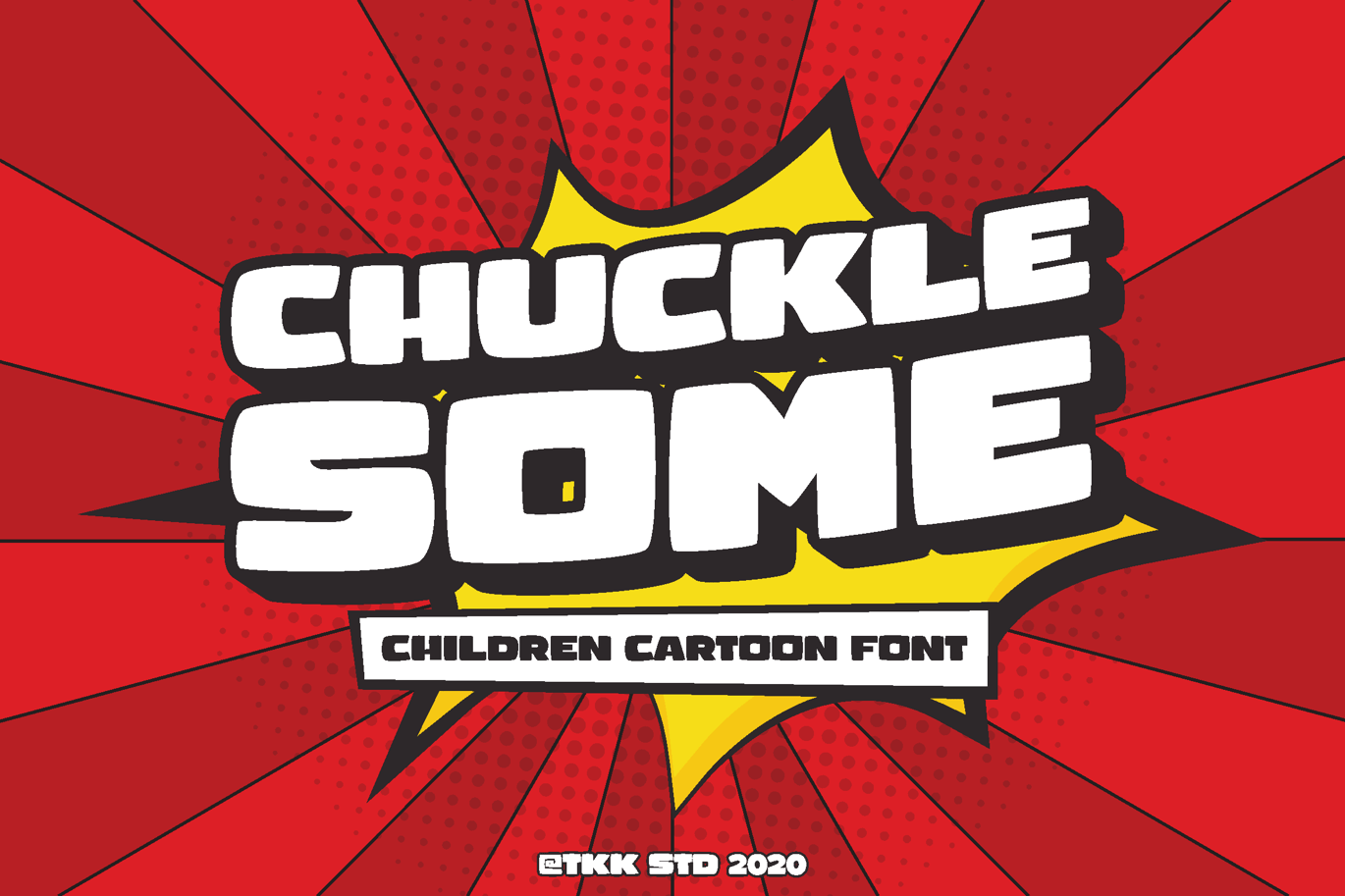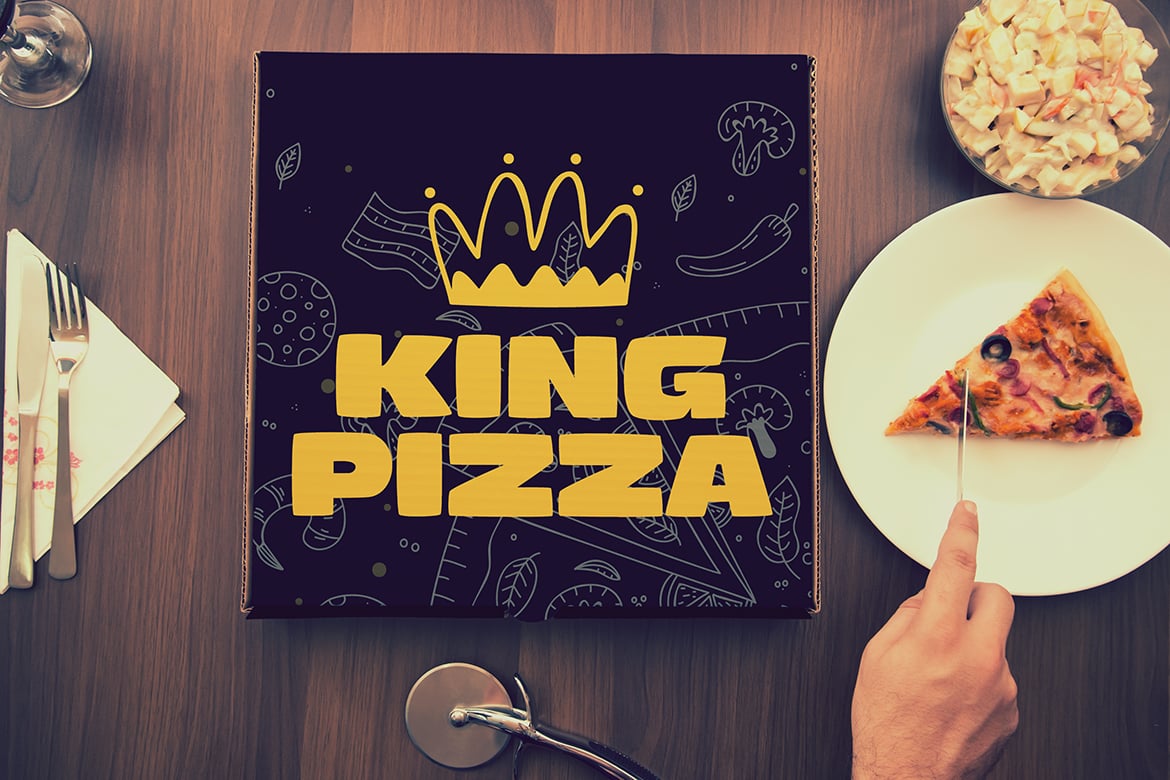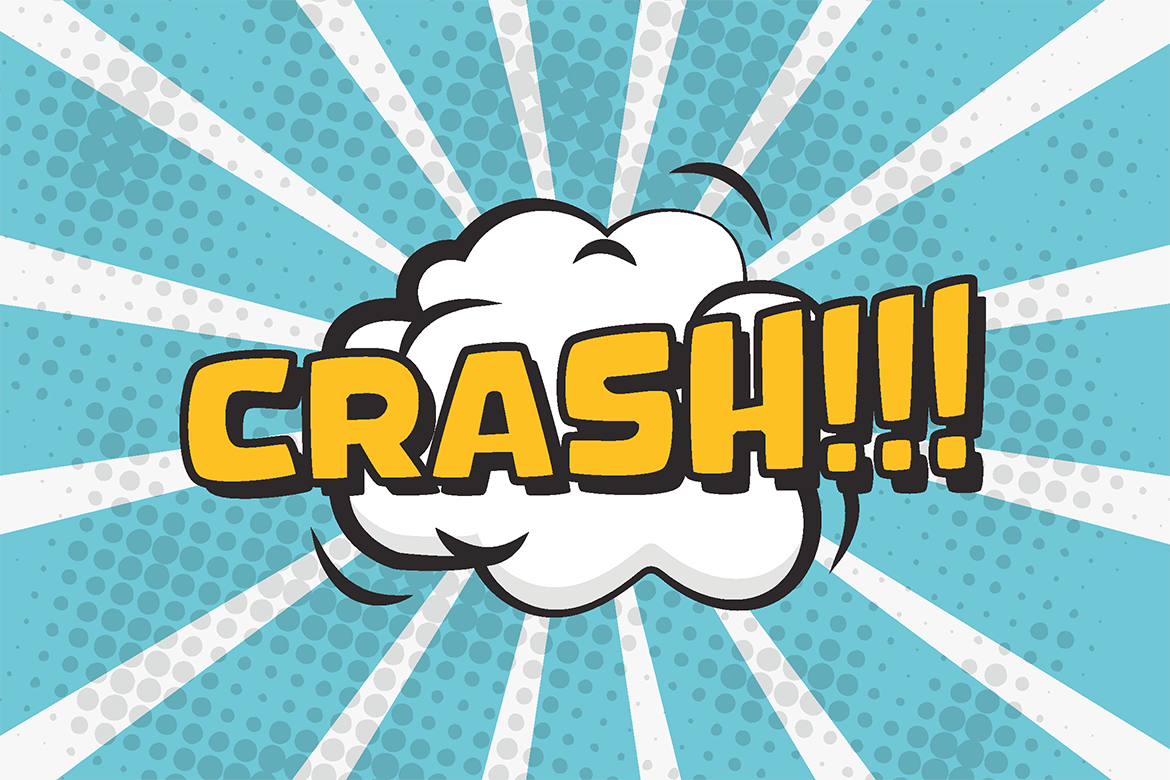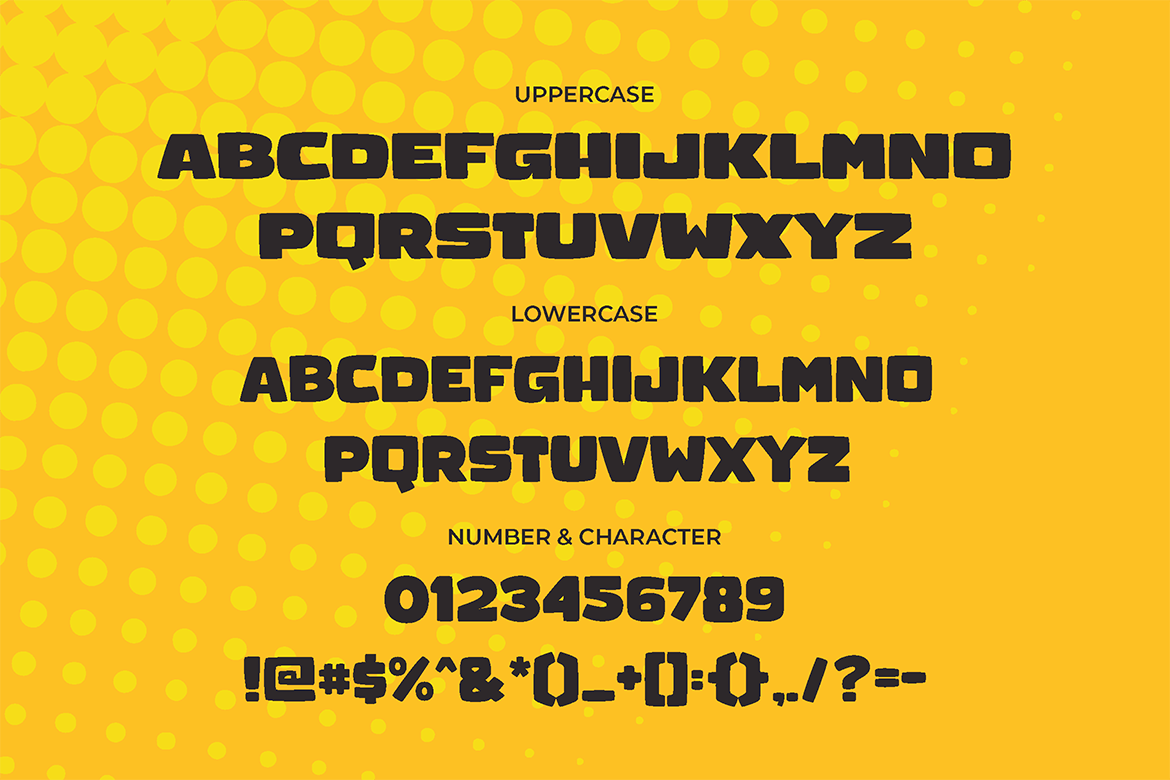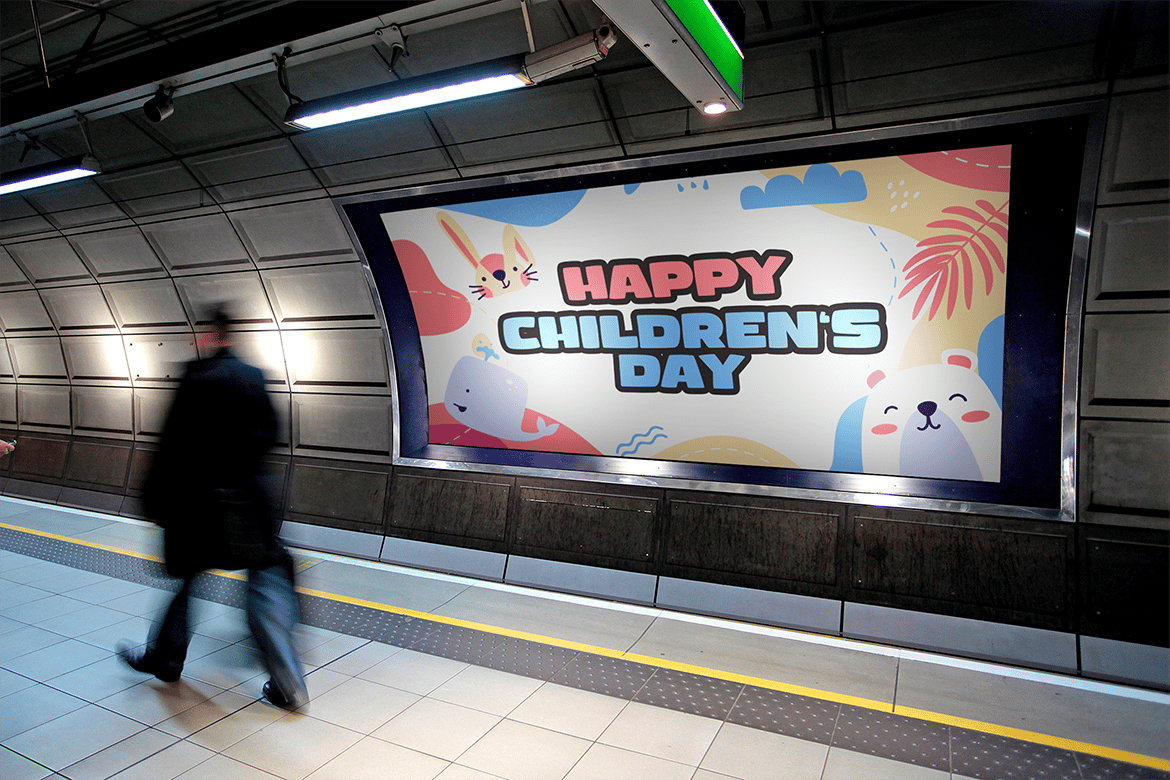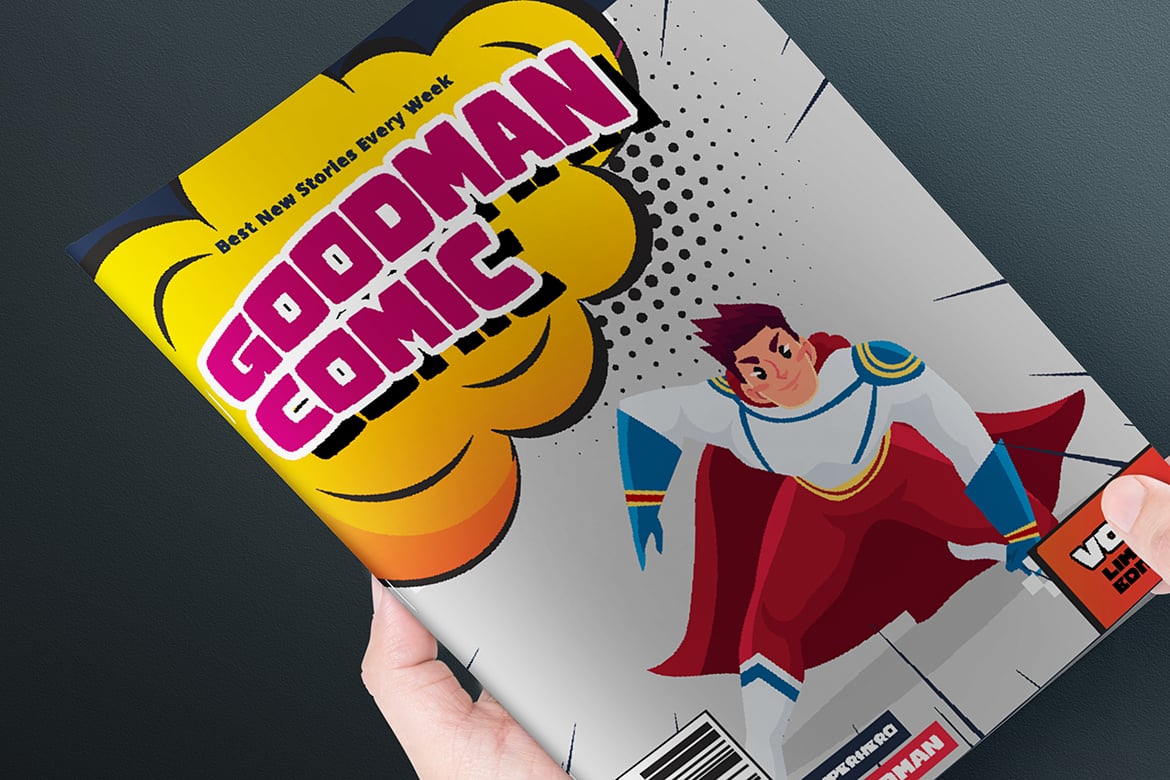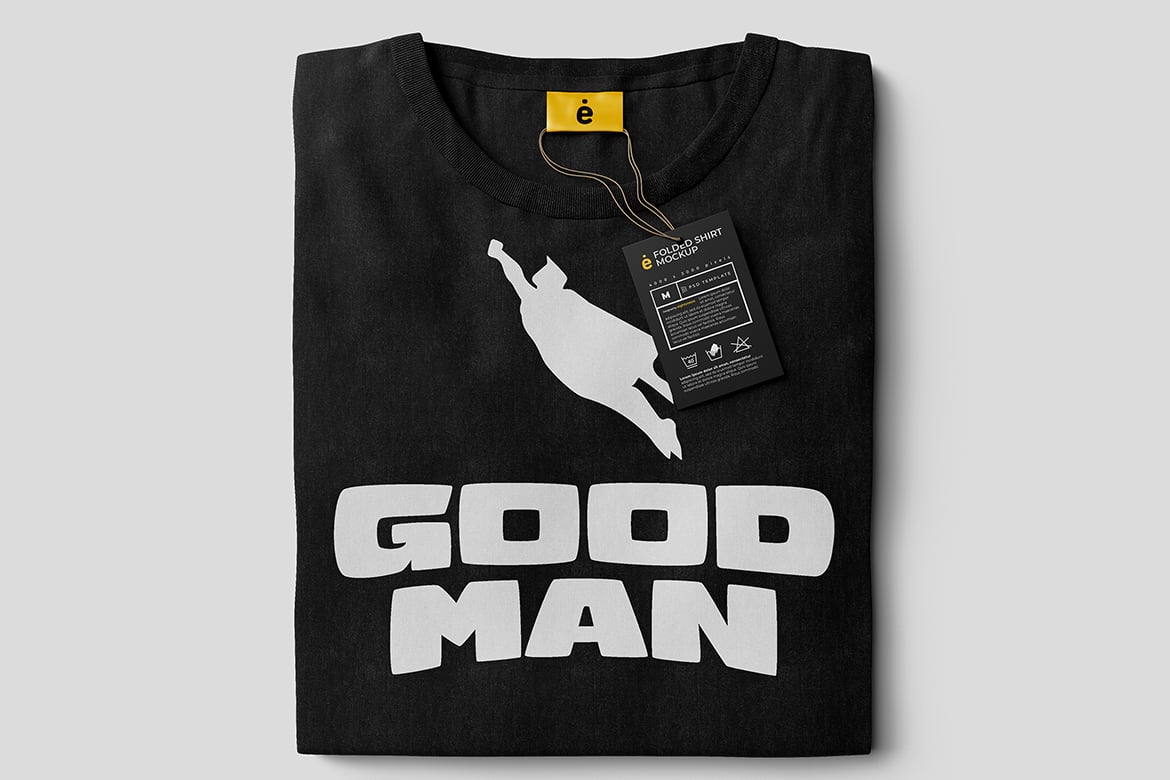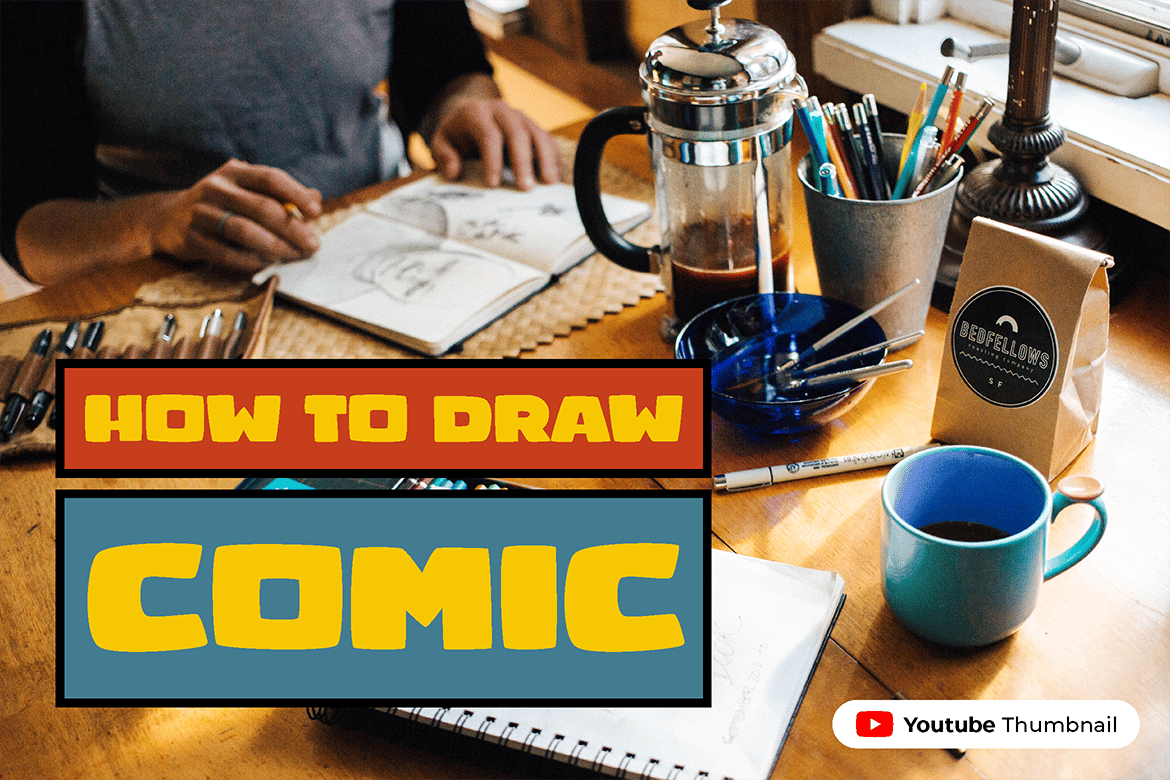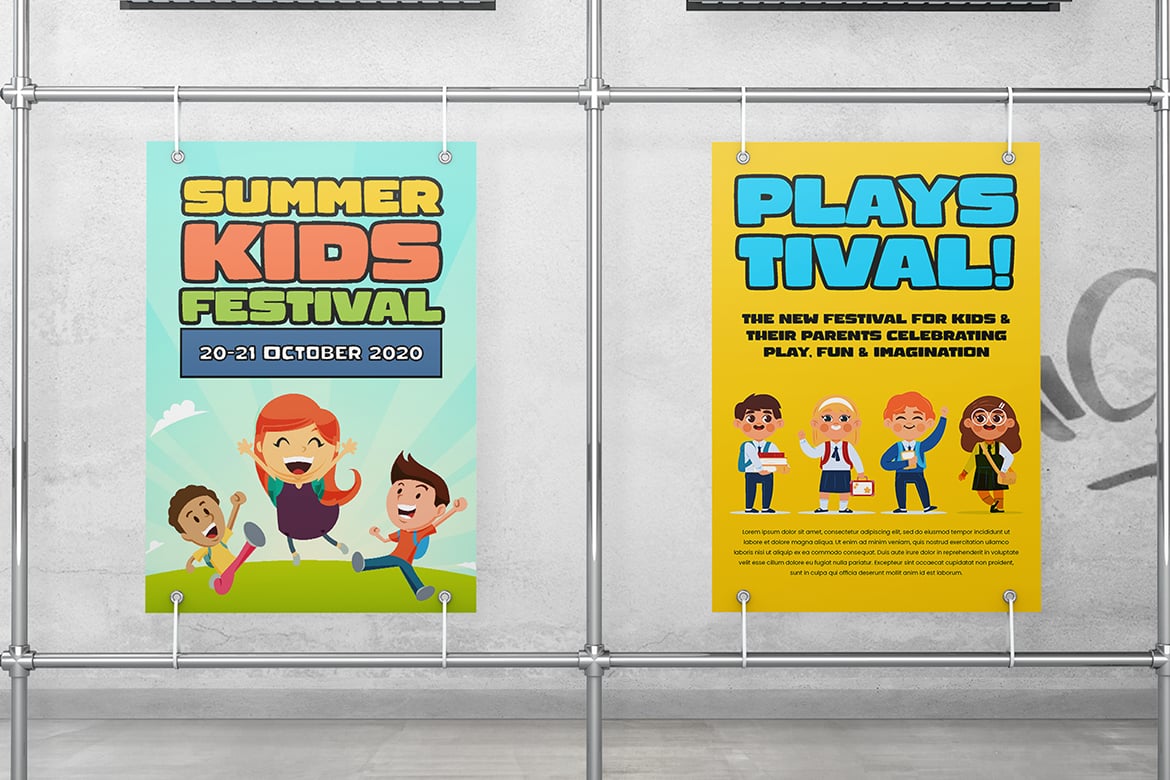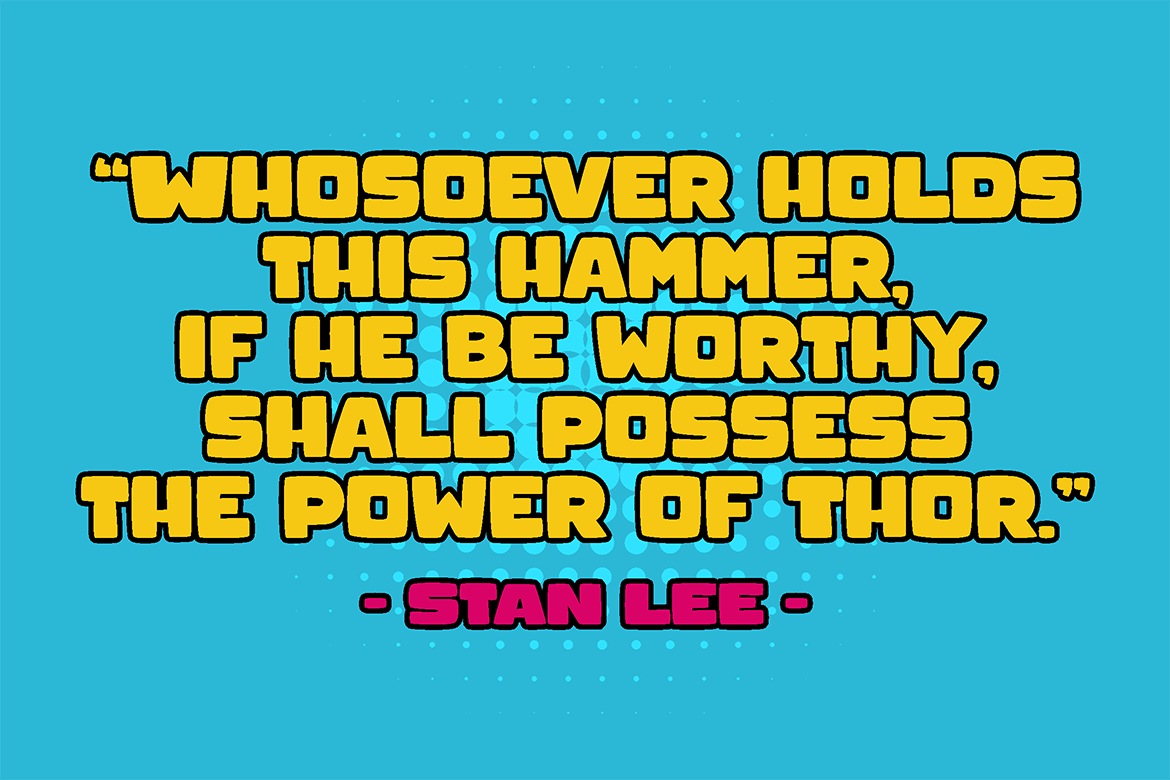
Comic Font – Chucklesome
CHUCKLESOME – A Loud & Playful Comic Font
CHUCKLESOME is a bold, high-energy typeface inspired by classic comic books, action-packed posters, and playful storytelling. With its chunky letterforms, dynamic angles, and pop-art influence, this font bursts with personality, making it perfect for comic-style branding, entertainment promotions, and fun-packed product packaging.
Whether you’re designing snack packaging, comic book covers, restaurant menus, or playful social media content, CHUCKLESOME delivers a lighthearted and impactful punch to every word. Its vibrant, bold presence ensures that your designs capture attention with a fun and expressive twist.
Why Choose CHUCKLESOME?
- Comic Book & Pop-Art Vibes – A fun, bold typeface with a retro comic feel.
- Perfect for Entertainment & Branding – Ideal for comics, gaming, and playful product design.
- Dynamic & Eye-Catching – Designed to pop off the page with energetic visuals.
- Versatile for Digital & Print – Works great on posters, merch, menus, and social media graphics.
- Expressive & Fun – Brings excitement, humor, and impact to any project.
Let CHUCKLESOME add a punch of fun and excitement to your designs!